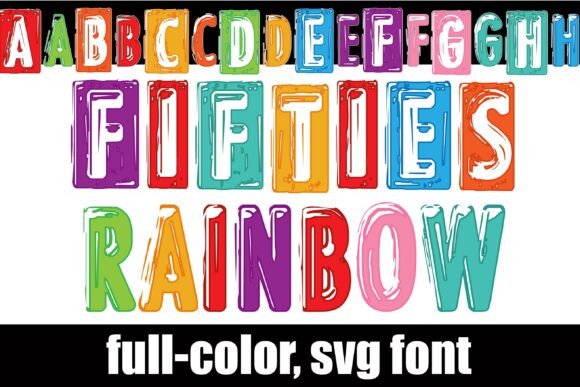
Fifties Rainbow Font: A Vibrant and Versatile Full-Color Font
The Fifties Rainbow Font is a stunning full-color font that features a rainbow of colors on textured 3D imprints. This font is perfect for designers who want to add a touch of personality to their designs. With its unique and vibrant colors, the Fifties Rainbow Font is sure to make your designs stand out.
What Makes the Fifties Rainbow Font Special?
The Fifties Rainbow Font is a full-color SVG font that features a range of colors and styles. This font is perfect for creating anything from simple text logos to complex illustrations. The font is vector-based, so it can be scaled to any size without losing quality.
Features of the Fifties Rainbow Font
- Rainbow of Colors: The Fifties Rainbow Font features a vibrant rainbow of colors on textured 3D imprints.
- Alt Case: The font includes an alt case of additional colors for each letter, which can be accessed through your system or Silhouette’s glyph map.
Why Choose the Fifties Rainbow Font?
| Font Name | Fifties Rainbow Font |
| Author | Illustration Ink |
The Fifties Rainbow Font is a vibrant and versatile full-color font that is perfect for designers who want to add a touch of personality to their designs. With its unique and vibrant colors, this font is sure to make your designs stand out. Whether you’re creating a simple text logo or a complex illustration, the Fifties Rainbow Font is the perfect choice.